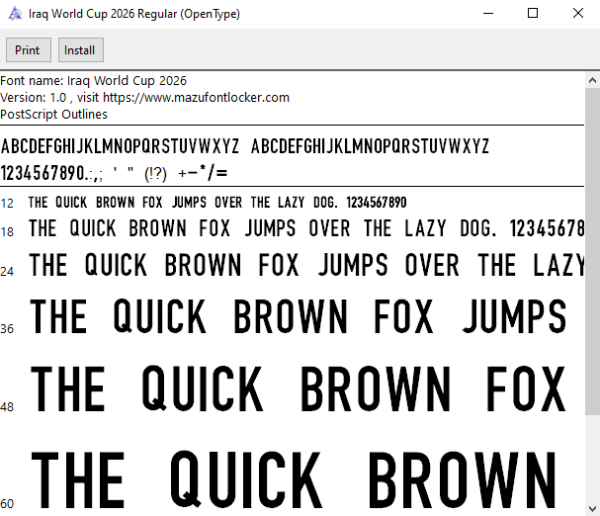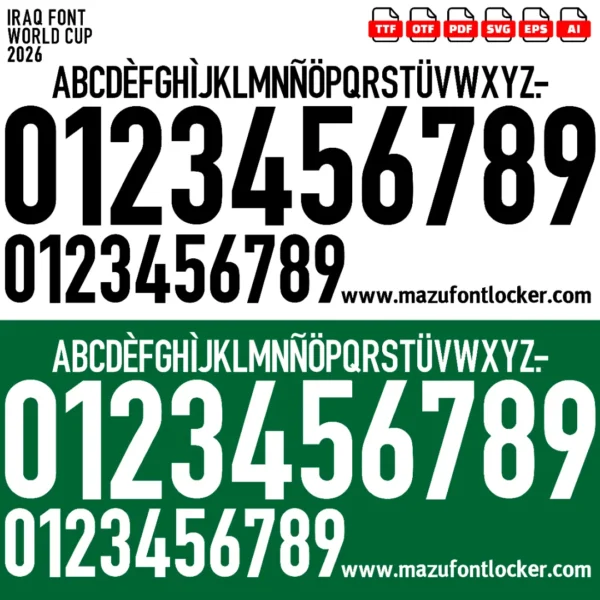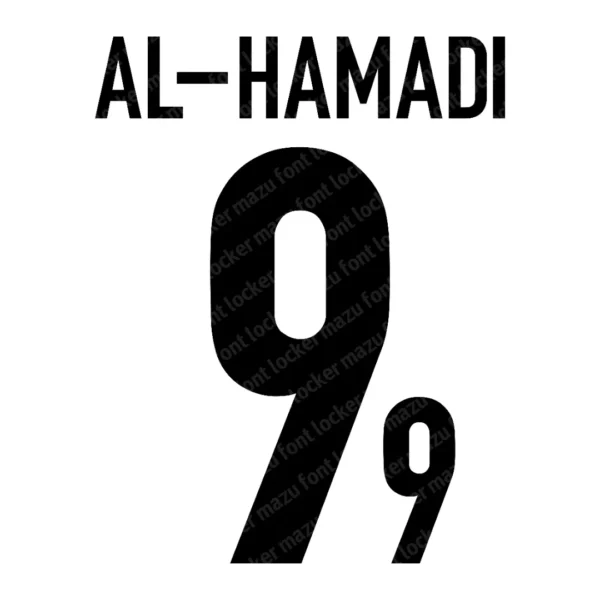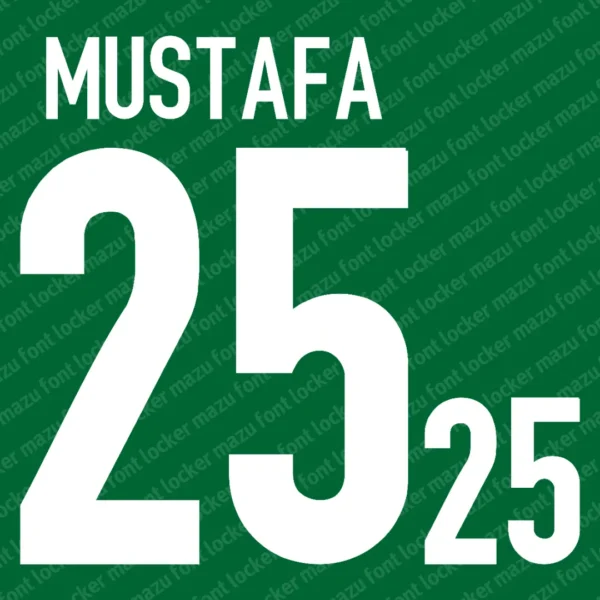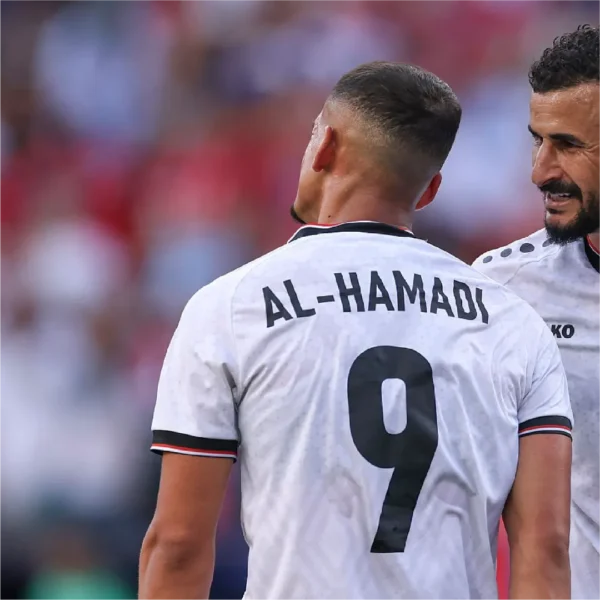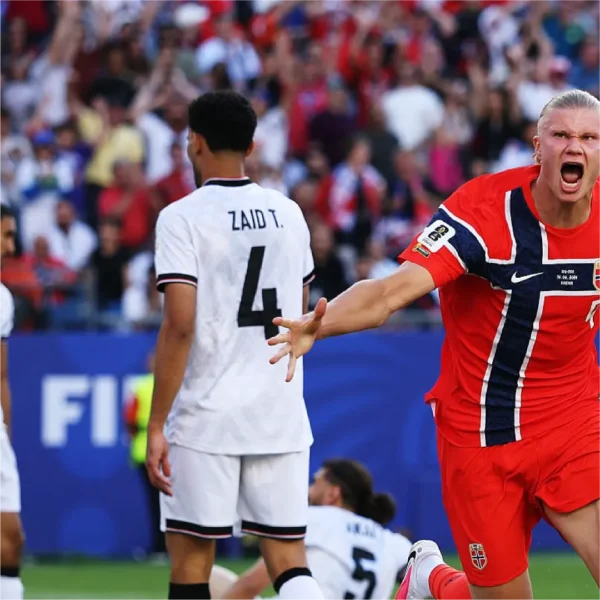
Iraq World Cup 2026 Font Vector – Epic Lions of Mesopotamia Masterpiece
This premium font captures the commanding, iconic, majestic, and battle-ready lettering that embodies the unstoppable Iraqi spirit — delivering raw Arabian fire, explosive winning energy, relentless never-say-die mentality, tactical supremacy, and legendary revolutionary phoenix grit. 🔥
Iraq World Cup 2026 Font Vector – Authentic Lions of Mesopotamia Typeface
The Iraq World Cup 2026 Font Vector is a premium typeface that accurately recreates the official match lettering worn by the Iraq national team during the 2026 FIFA World Cup campaign. This high-quality vector font kit captures the bold, powerful, and resilient typography that represents the pride, passion, and rich football heritage of the Lions of Mesopotamia.
Designed for professional designers and passionate Iraq fans, the Iraq World Cup 2026 Font Vector delivers perfect authenticity for creating realistic jersey mockups, fan merchandise, matchday posters, social media graphics, and Asian football content. It pairs beautifully with the iconic green home kit featuring the famous Iraq crest.
Why Choose Iraq World Cup 2026 Font Vector
This font stands out because of its sharp vector precision and strong national identity. Every letter and number is crafted to match the exact style used on the players’ shirts during the 2026 World Cup campaign. Whether you are making realistic kit templates or exciting Lions of Mesopotamia content, the Iraq World Cup 2026 Font Vector gives your designs that authentic Iraq look.
The letterforms in the Iraq World Cup 2026 Font Vector are tall, bold, and highly readable. The strokes have a strong, clean weight with excellent edge definition that looks powerful on the back of jerseys while maintaining classic Mesopotamian spirit and modern strength.
• Full uppercase A–Z and numbers 0–9 in authentic Iraq World Cup 2026 style
• Create highly realistic Iraq World Cup 2026 home and away jersey mockups with accurate lettering
Iraq World Cup 2026 Campaign
The 2026 FIFA World Cup saw the Lions of Mesopotamia return to football’s greatest stage for the first time since 1986. Iraq delivered passionate and disciplined performances, showcasing technical skill, tactical organization, and the fighting spirit that defines Iraqi football.
Veteran stars and emerging talents from the domestic league and diaspora united to create memorable moments for the nation. The campaign further strengthened Iraq’s growing reputation as a competitive force in AFC and world football.
The Iraq World Cup 2026 Font Vector is an independently designed typeface package. It is carefully crafted to replicate the official shirt lettering style of the 2026 World Cup season. This font kit is perfect for creative projects, fan edits, nostalgic jersey designs, and custom football graphics.